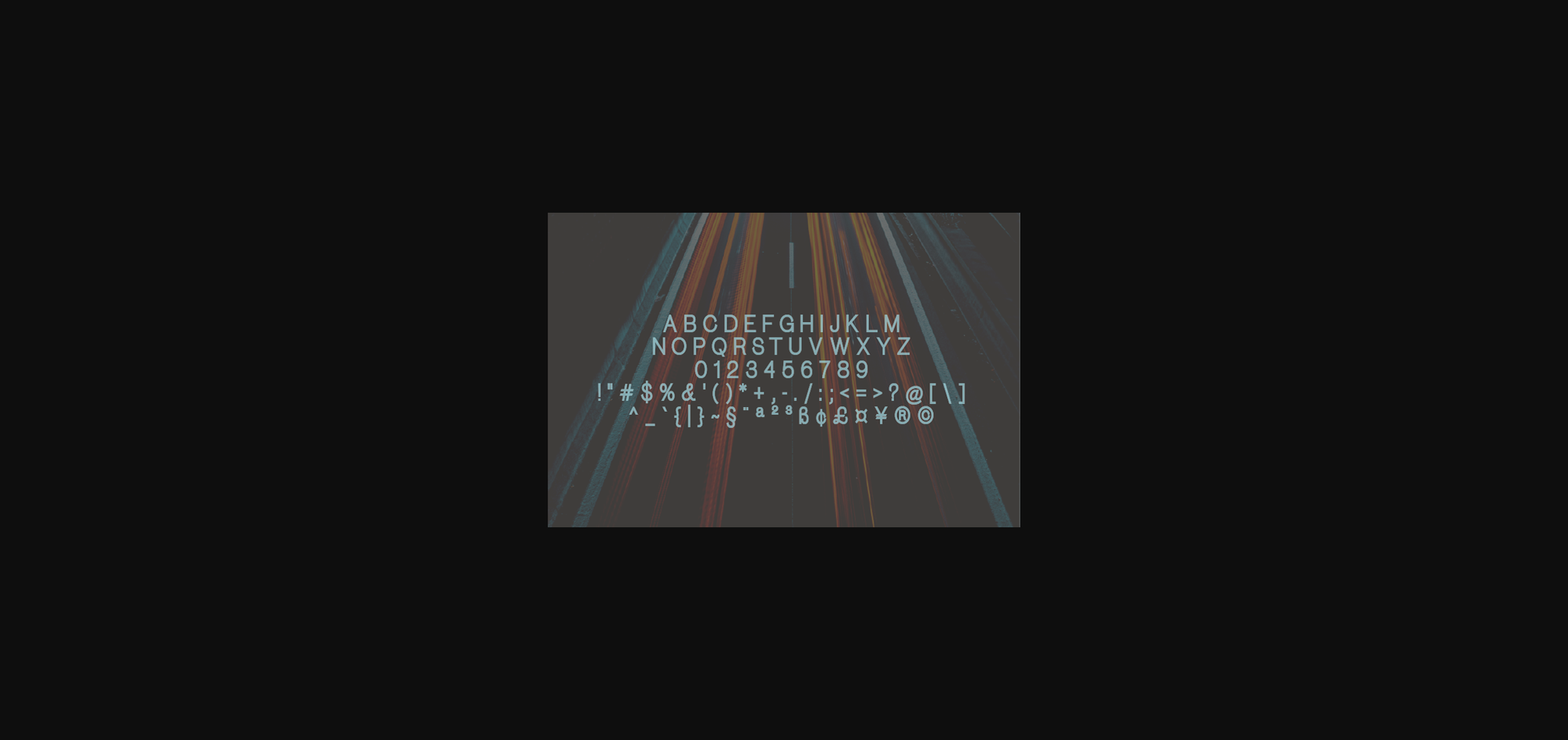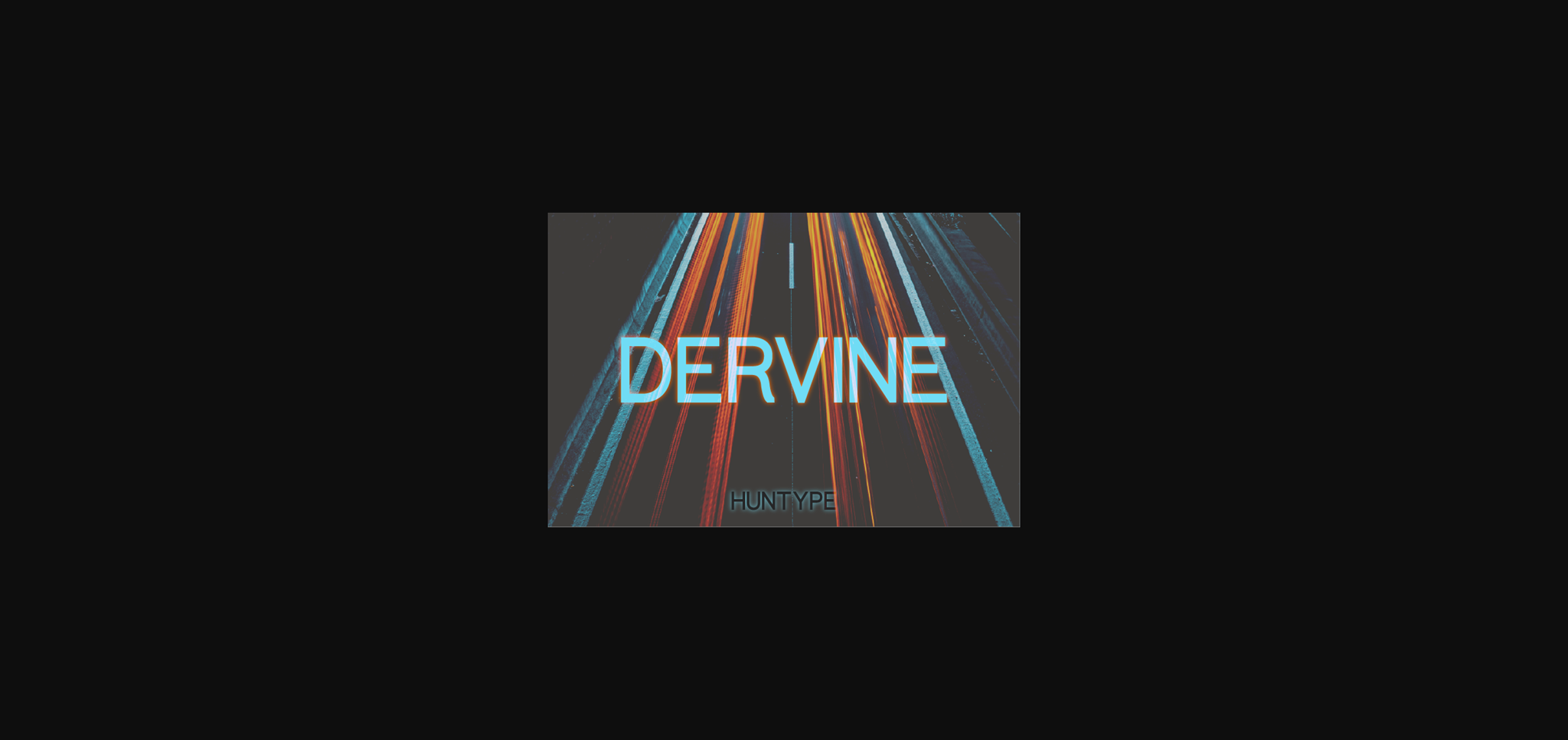
Dervine Font
About Dervine Font
Devine is a great sans serif font, carefully handcrafted to become a true favorite. Its casual charm makes it appear wonderfully down-to-earth, readable and, ultimately, incredibly versatile. Devine will look outstanding in any context, whether it’s being used on busy backgrounds or as a standalone headline.